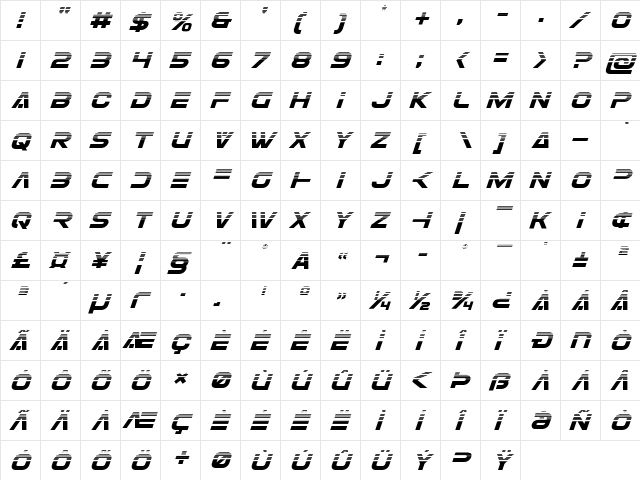
Eurofighter Halftone Italic Italic
Design Context for Eurofighter Halftone Italic Typeface
Eurofighter Halftone Italic takes a measured approach to typography — its balanced proportions and neutral character make it a reliable workhorse for both digital and print work. The dynamic lean of this cut emphasises speed and emphasis in any layout.